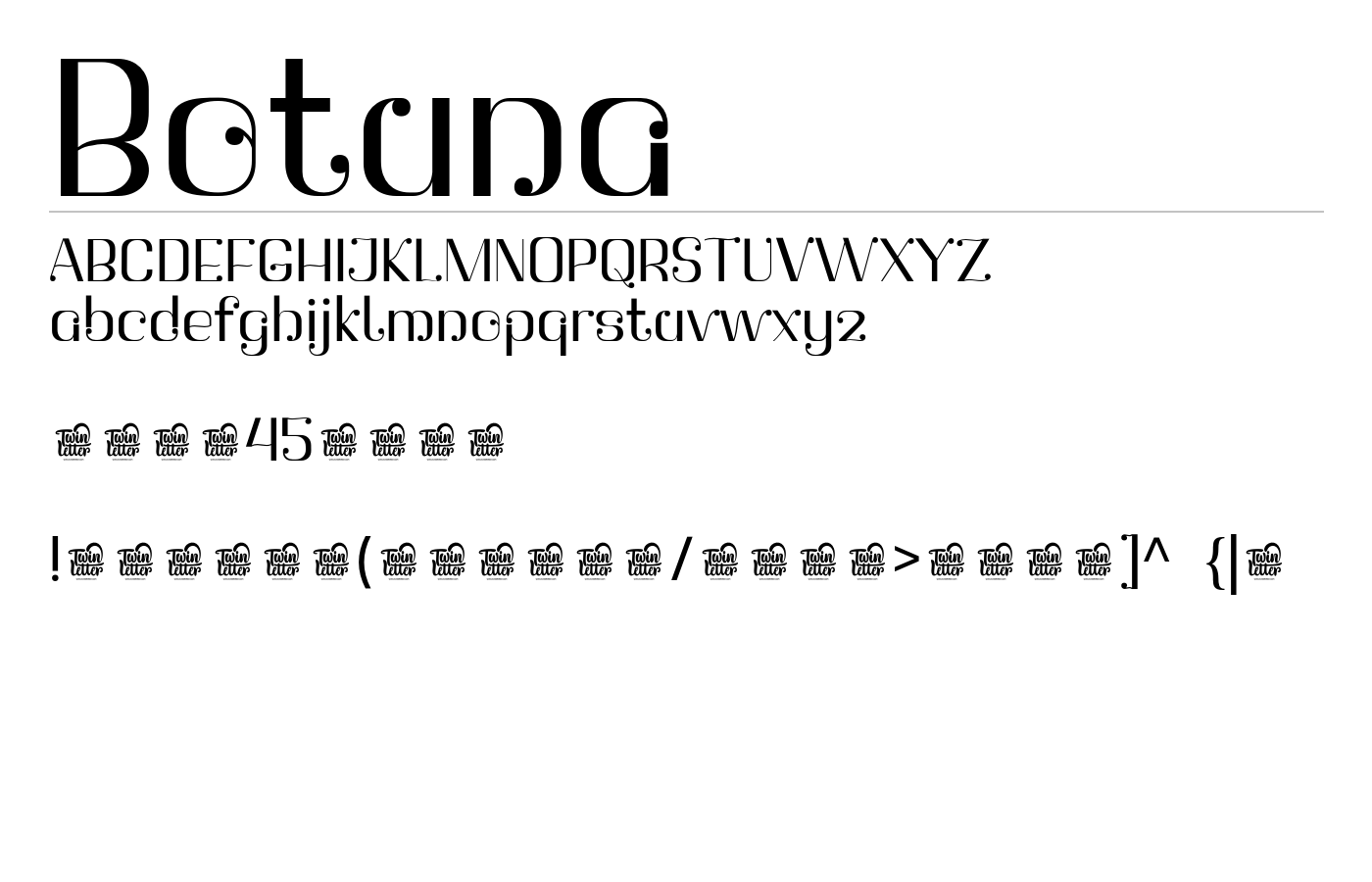
Botuna is a stylish serif font with a modern twist, featuring thin, elegant strokes and unique curved terminals that give it a playful yet sophisticated look. Its tall, narrow letterforms and distinctive details make it ideal for fashion branding, editorial headlines, and creative projects that seek a blend of elegance and contemporary flair.
Botuna Font
About Botuna Font